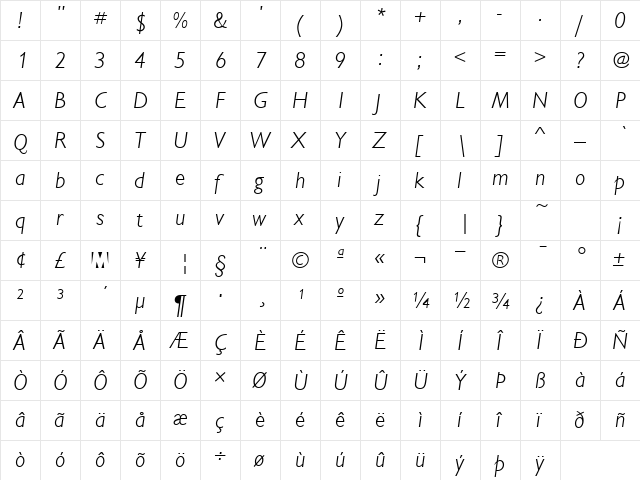
Design Context for ChantillyLH Typeface
ChantillyLH takes a measured approach to typography — its balanced proportions and neutral character make it a reliable workhorse for both digital and print work. The slanted form adds forward momentum and visual energy. The delicate stroke weight brings airiness and refinement to layouts.
Pro Tip: Try ChantillyLH for annotation and caption copy alongside an upright companion — the contrast in angle creates a dynamic but ordered typographic system.